I have often referred to Tofino as my “playground” typeface. It’s the first typeface I ever started working on and has become the space where I can try out new type design ideas and skills.
I began working on Tofino in 2014 and it's been a long process of improving and growing this type family into what it is today. You can look at the changelog on the Tofino page for a more detailed list of how it's changed and grown.
I spent a week in Tofino in the middle of November 2014. For most of my stay I was curled up in front of the cozy glow of my computer screen, earl grey tea in hand. One of the reasons for the trip was to take some time away from my interaction design day job to work on the typeface I’d been thinking about starting for months.
Tofino’s letters were inspired by a typeface called Grotesca Ideal. I found it in an old 1922 specimen from Richard Gans Fundicion Tipographica, a type foundry in Madrid that mostly imported typefaces for the Spanish market. The actual design seems to have originated in Germany from a foundry called Wagner & Schmidt who distributed the design around Europe under many different names.
The specimen itself was using Grotesca Ideal as the small descriptive labeling text. It caught my eye because it was already proving itself well at small sizes and I thought that the slightly squared, condensed shapes would make a great workhorse typeface that would translate well to a screen environment.
The shapes quickly started to diverge from their inspiration as I normalized all the weird details and created more consistency in the design, which taken too far, can suppress the features that makes the shapes unique. Finding a balance between cleaning it up and keeping it characterful was one of the toughest parts of making Tofino—I wanted Tofino to be a team player that didn’t show off too much, but still did everything with just enough flare.
When designing the shapes of the letters, it’s helpful to have some goals, or rules to follow. The main purpose of referencing a historical typeface was to help me define these rules for my own drawings. There were some aspects of the historical reference that I wanted to keep and other things I wanted to revise.
Some of the decisions I made about the rules for my letter shapes pushed the design closer toward a Neo-Grotesque like Helvetica, which typically performs better at display sizes. I made a conscious decision to create Tofino for display use, especially because many digital use cases of the time involved small amounts of text at larger sizes. This had a large influence on the spacing of Tofino resulting in it looking best at sizes between 16px-24px.
But what about those text paragraphs, what do we use there!? In 2017, I added a set of styles specifically designed for text. The main adjustments included more spacing, open counters, and redrawing a few letters to be more discernible from each other.
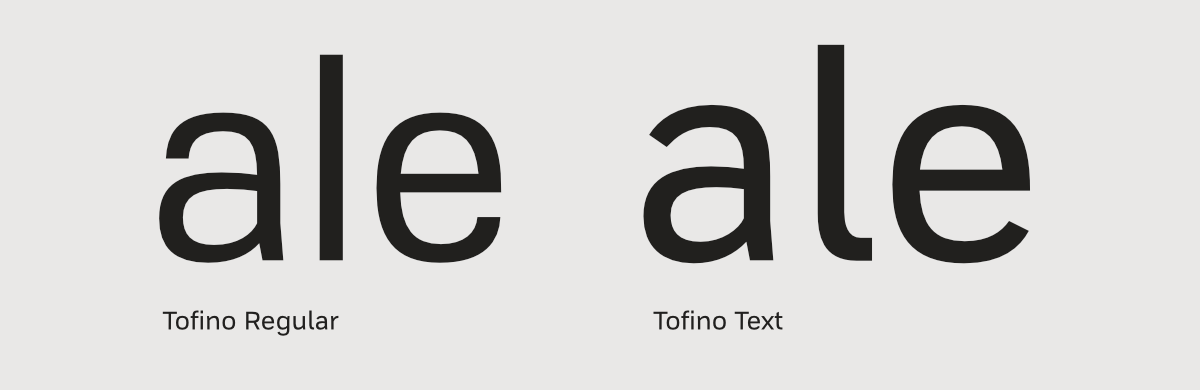
I love that variable fonts can contain all possible weights within one file but even with that freedom, type designers need to define the weights to distribute as individual files or mark as defined instances in the variable font. In Tofino, I wanted to make sure these covered a wide range of weights, but would each remain useful. The process for picking looked a little like this:
For the lighter weights I wanted to make a system that would allow for a page with a consistent texture even when the size of the text changed. For example, if we set paragraphs in the Light Text weight, anything in a larger size would appear heavier if also set in the Light Text weight. But if the heading is set to Thin and the subheading to Light, we can get a consistent texture down the page and create hierarchy with size alone. This is a nice option of minimal, subtle hierarchy that I was looking for in my own work but had trouble finding in another typeface.
The heavier weights follow a more traditional system of hierarchy created by both size and weight changes. They were largely based on Impallari’s stem calculator with minimal adjustment to get a good range in the heavier values.
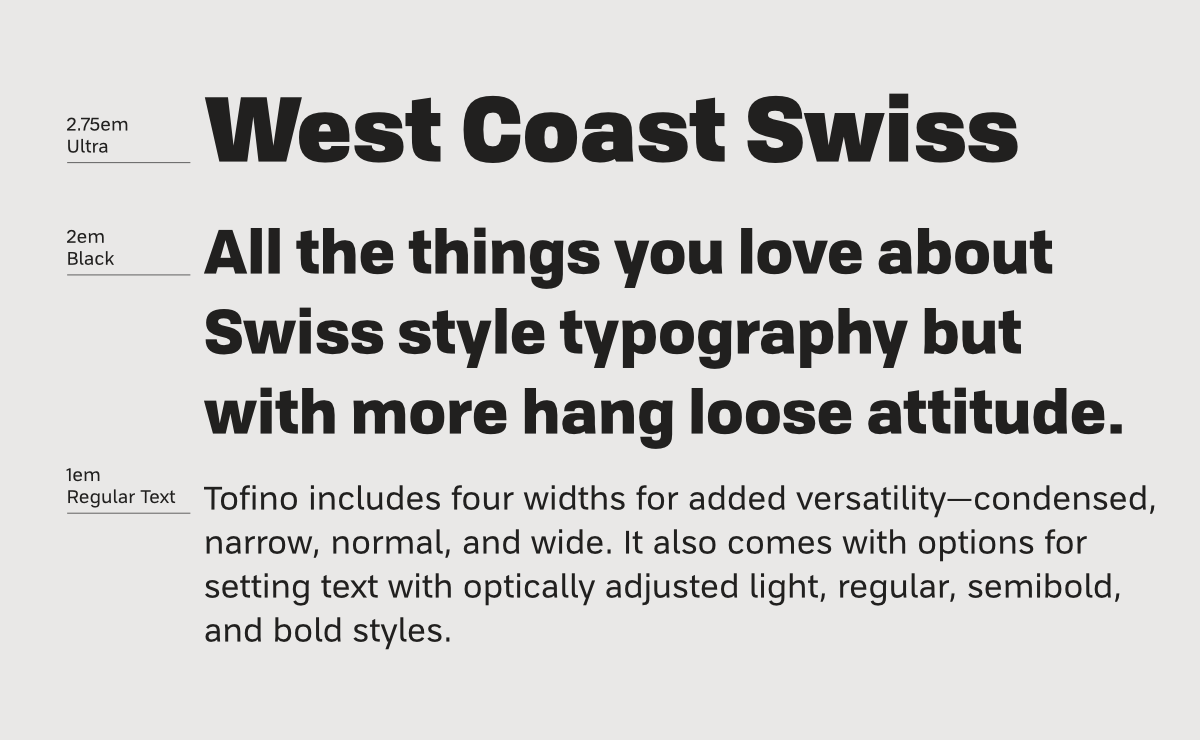
The first release of Tofino in 2016 only contained the regular width, but expanding the family to include condensed and extended widths provides more options for creating interesting hierarchy in design work and was completed a year later in 2017.
Similar to when I chose the weights, I first found the extremes of how condensed or extended I could push the letterforms and chose the widths based on those. I wanted to create the experience that when switching between Tofino Regular and Tofino Regular Condensed the weight still felt the same. This created a problem in some of the heavier weights where it just wasn’t possible to create this consistency. As letters become more condensed, they have less space for counter-shapes and you can’t draw them to be as bold, so I had to leave out some of the heavier weights in the more condensed styles.
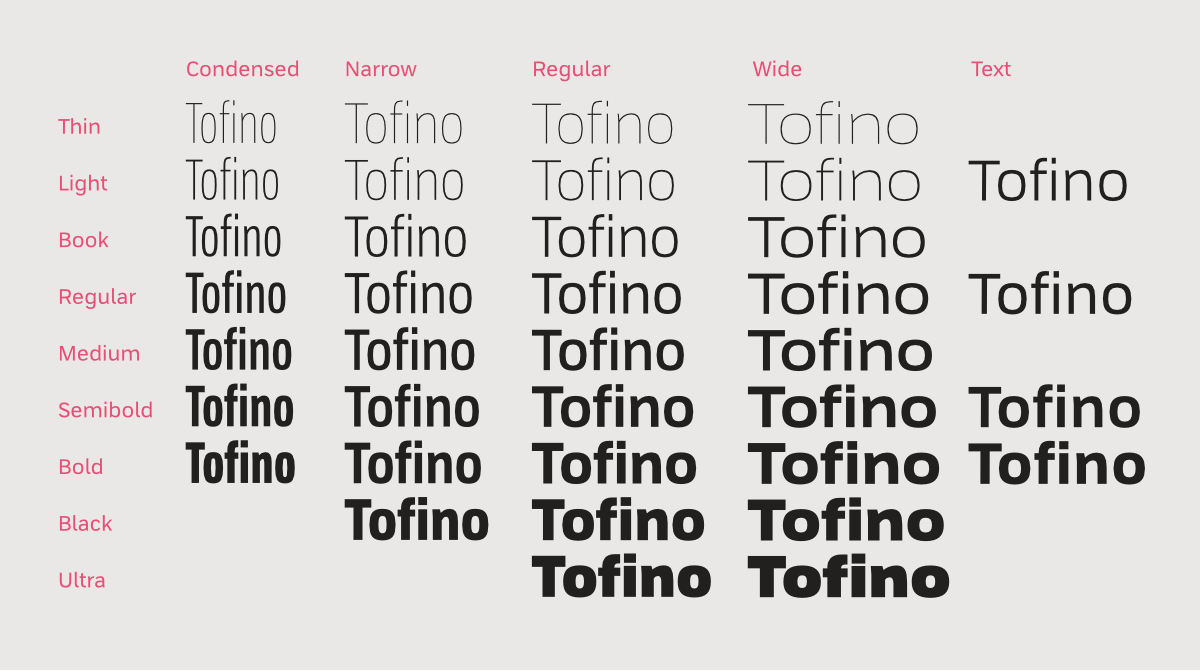
The majority of the typeface was completed in the months after my son was born in August 2015. Having a new baby around leaves you with a surprising amount of time that was previously filled by work—newborns spend an awful lot of time sleeping and eating. I often found myself lying on the couch with a tiny sleeping human lying on my chest. When I wasn’t also sleeping, there were two choices to fill my time, binge-watch Netflix, or key-bind the shift and command button to my mouse and work on my typeface with one hand.
I actually felt like designing type quite often (although much binge-watching happened as well 😝), I think it made me feel more like myself after going through the big personal changes that motherhood brings. I also made time for weekly meetings with other type designers in Vancouver, and Tofino really started to take shape.
Since 2016 Tofino has expanded from a simple 8 weight typeface to a typeface with 74 styles across four widths, optical styles, and italics. But the styles haven’t been the only thing changing—it was made into a set of two variable fonts to take advantage of technological changes and has steadily increased the language support to over 327 Latin-based languages. Tofino will likely continue to change and be my “playground” font where I try out new ideas and skills.